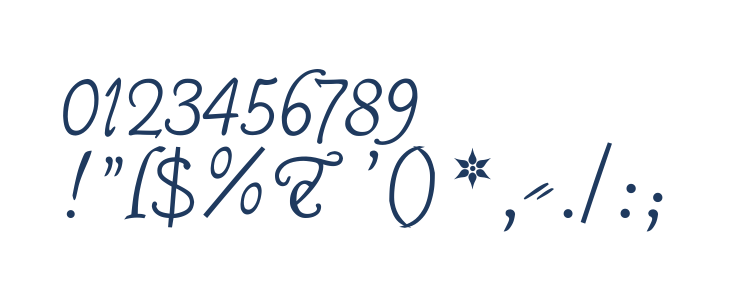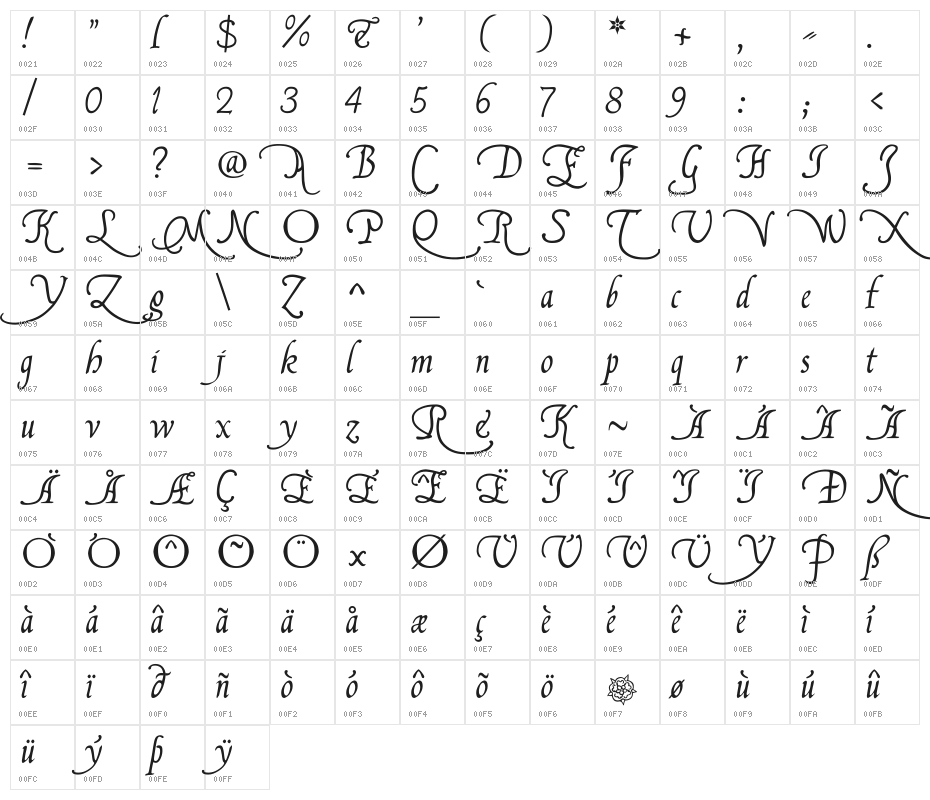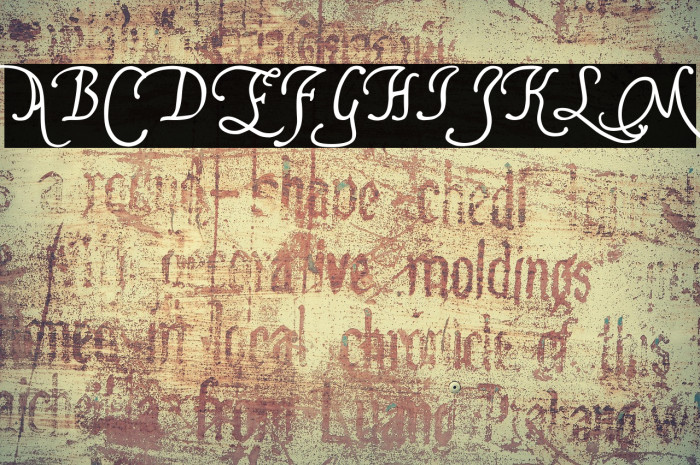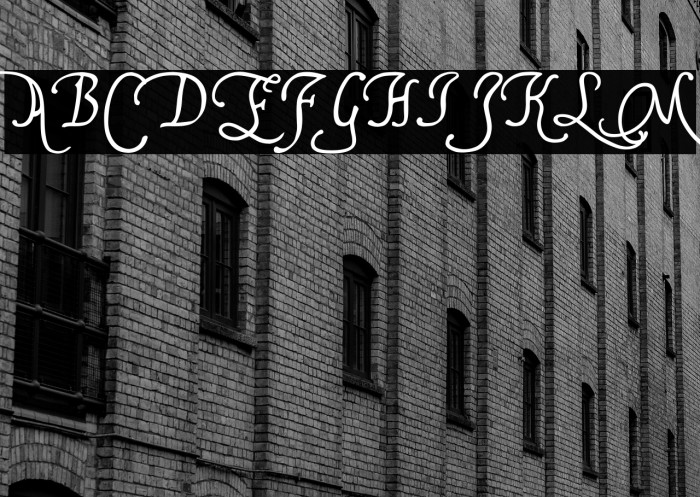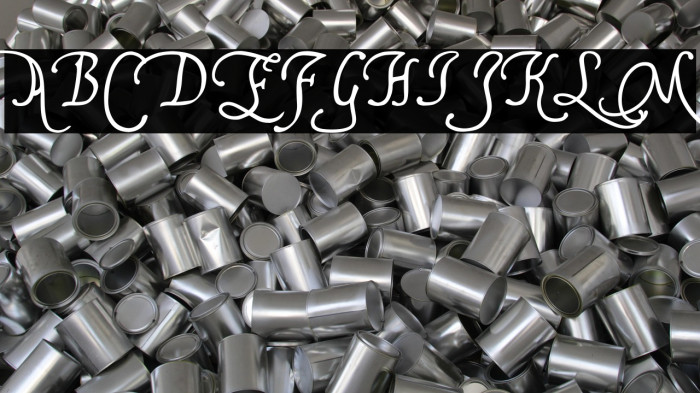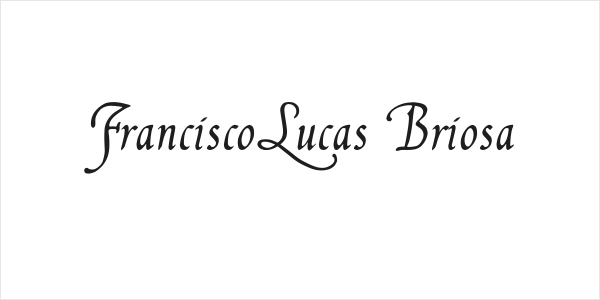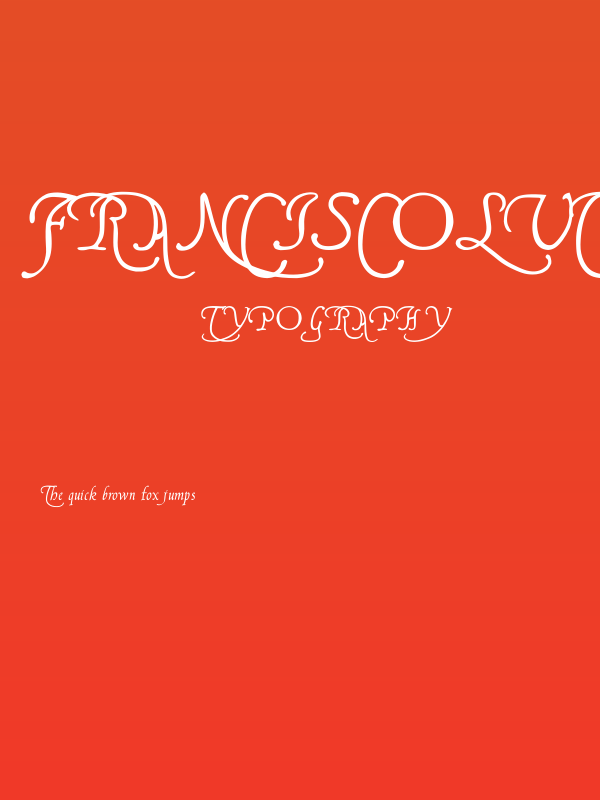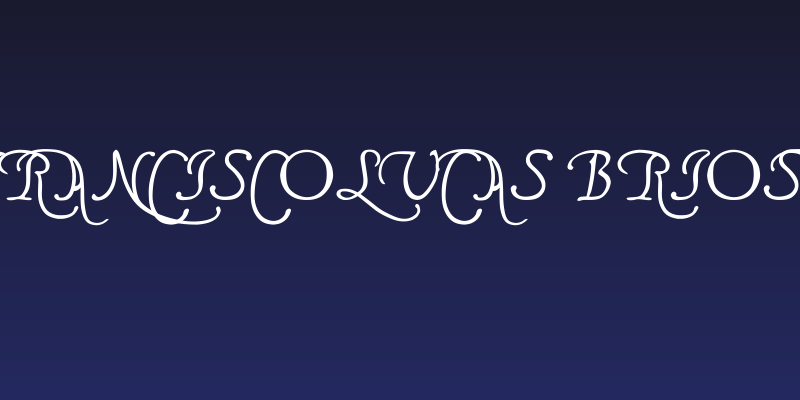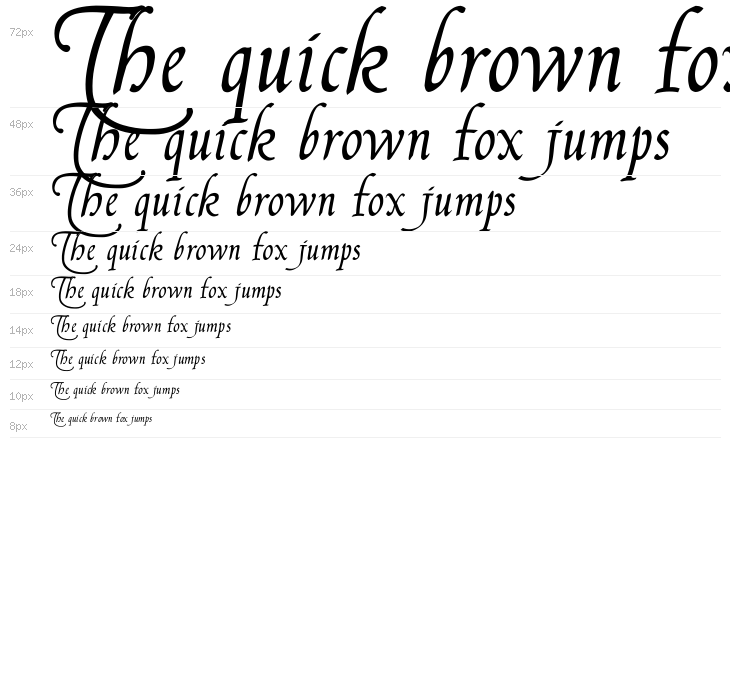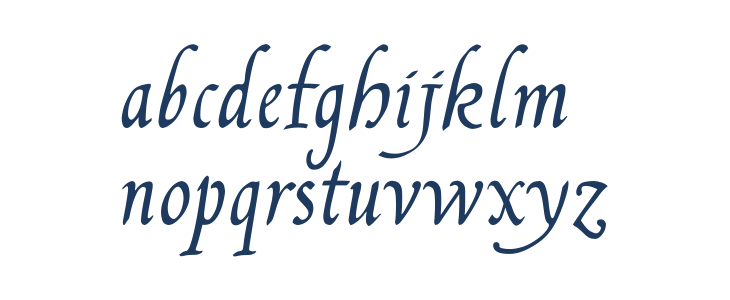
FranciscoLucas Briosa Font
FranciscoLucas Briosa Description
This font exudes a classic and elegant script style, characterized by its flowing and ornate letterforms. The uppercase letters are particularly decorative, featuring intricate loops and flourishes that give them a sophisticated appearance. The lowercase letters maintain a more subdued elegance, with smooth curves and a slight slant that enhances readability. The numerals are consistent with the overall style, offering a blend of readability and decorative flair. Special characters are thoughtfully designed, complementing the aesthetic of the alphabet. This font is ideal for projects that require a touch of elegance and tradition.